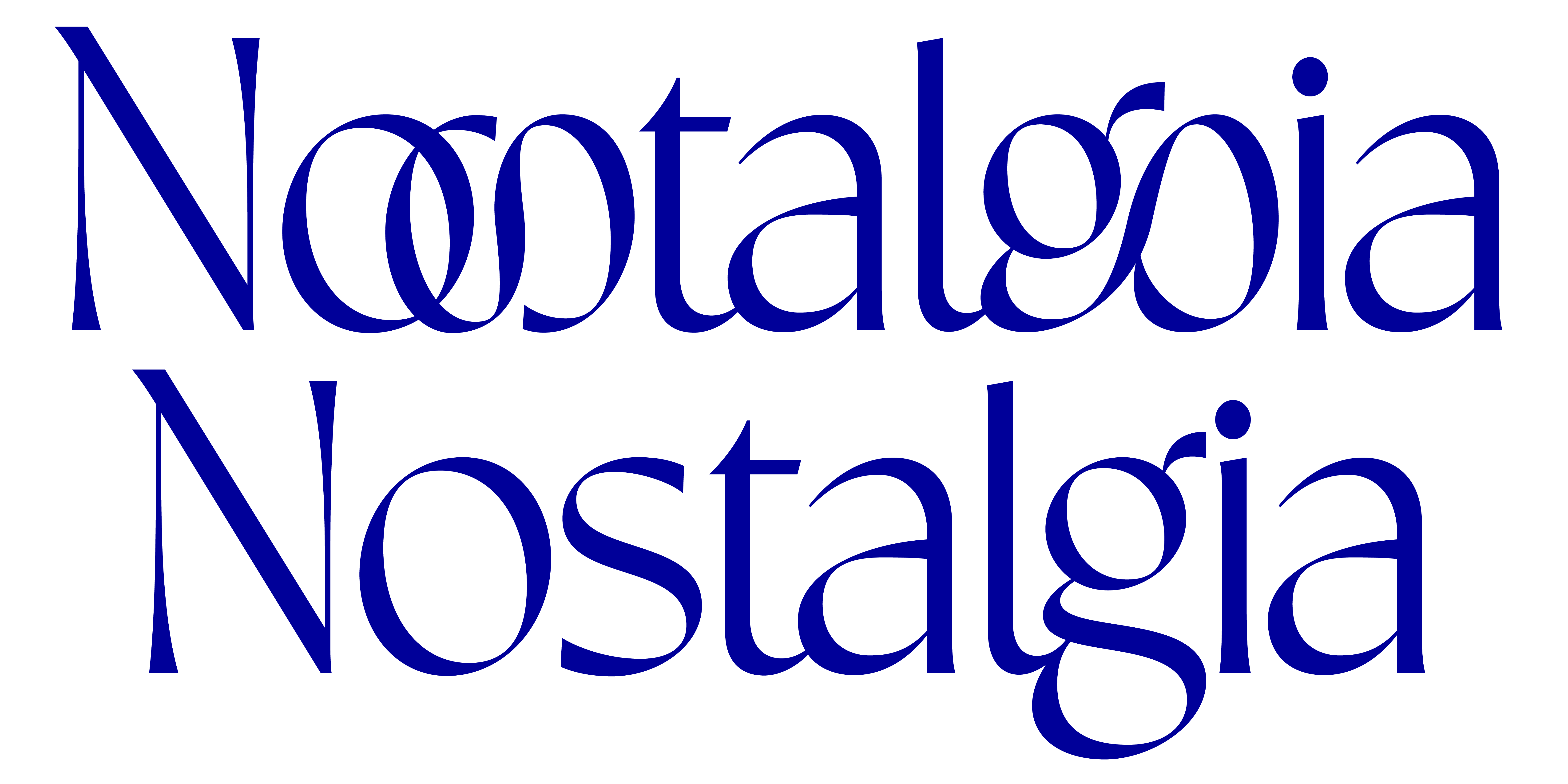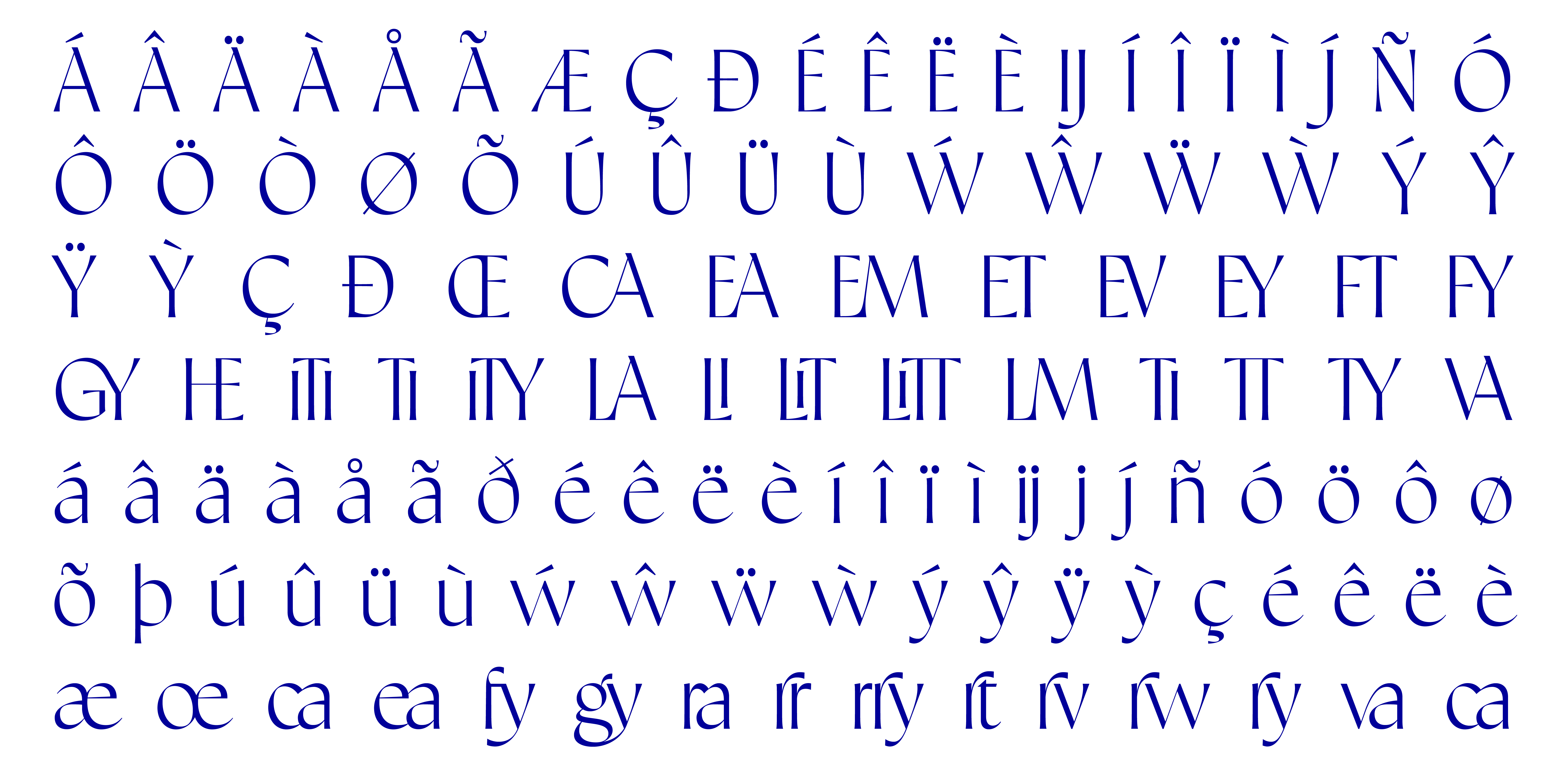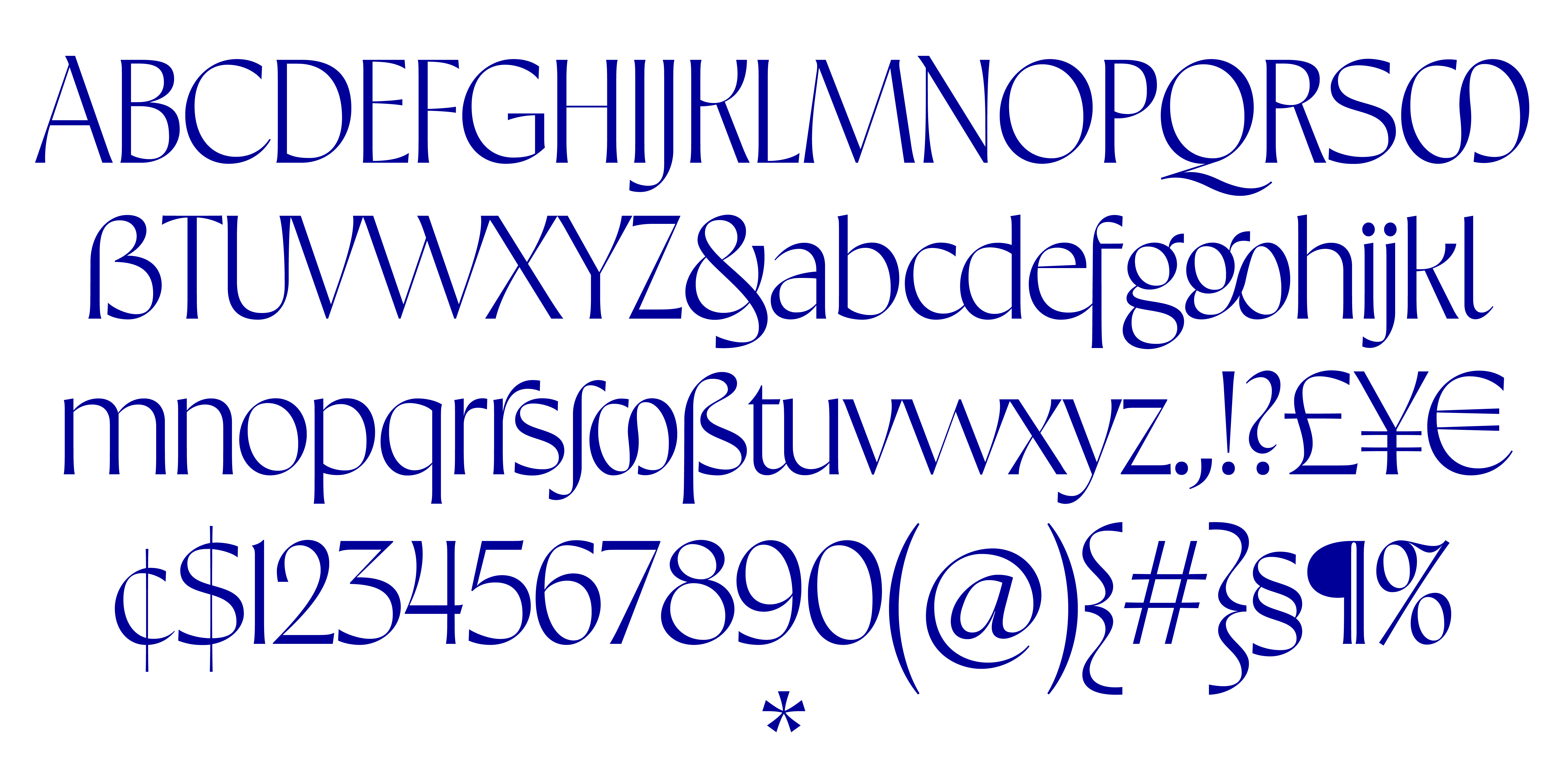
Outgo Collection
Outgo
Outgo Variable
Outgo is a new display typeface by James Plattner that emulates historic lettering, specifically book cover design. The sans serif letterforms are lightly flared to firmly plant the stems on the baseline, while also suggesting a handwritten and calligraphic quality. Exit strokes connect one letter to the next, round forms link together, and a variety of ligatures create even more interaction between glyphs. For those looking to keep things more straightforward, outgo includes a stylistic set that prioritizes legibility, with more conventional letterforms and spacing. Outgo is equal parts traditional and uninhibited, contrasting the time-tested with the wild and experimental. This unique combination of traditional and contemporary aesthetics makes it a great choice for logotypes, book covers, and editorial design.